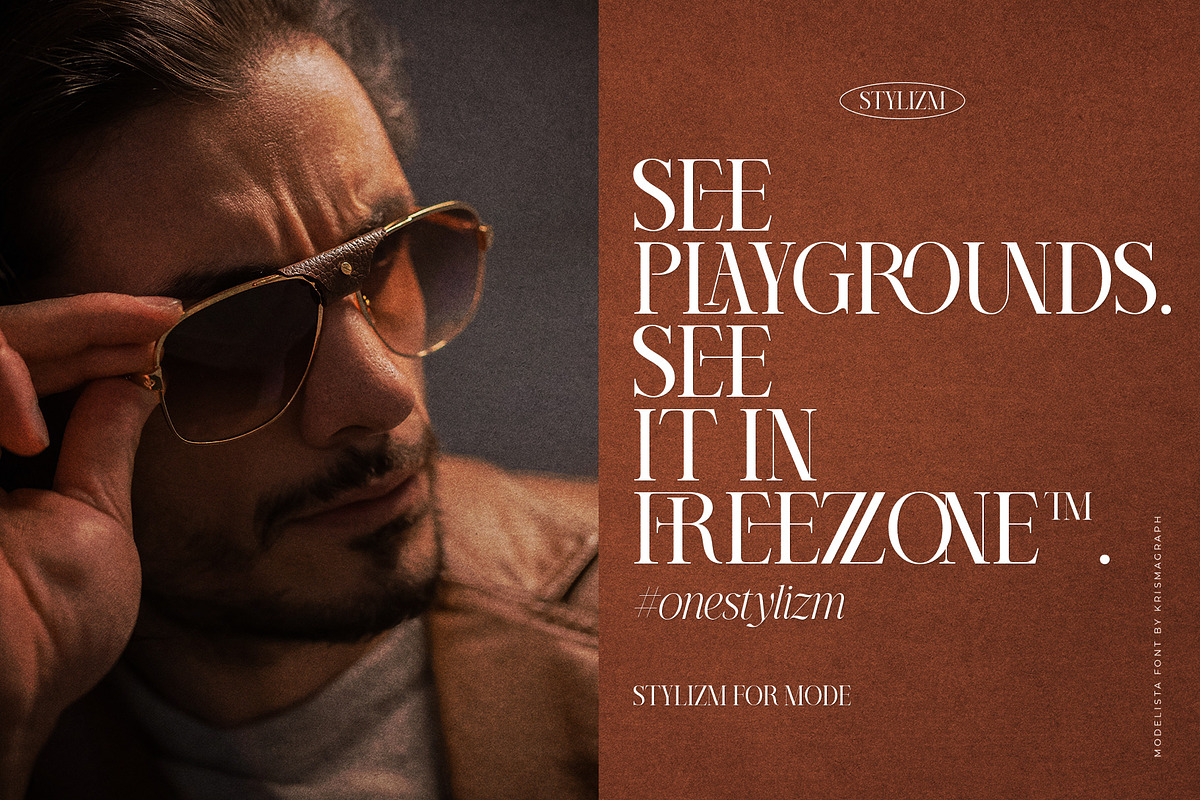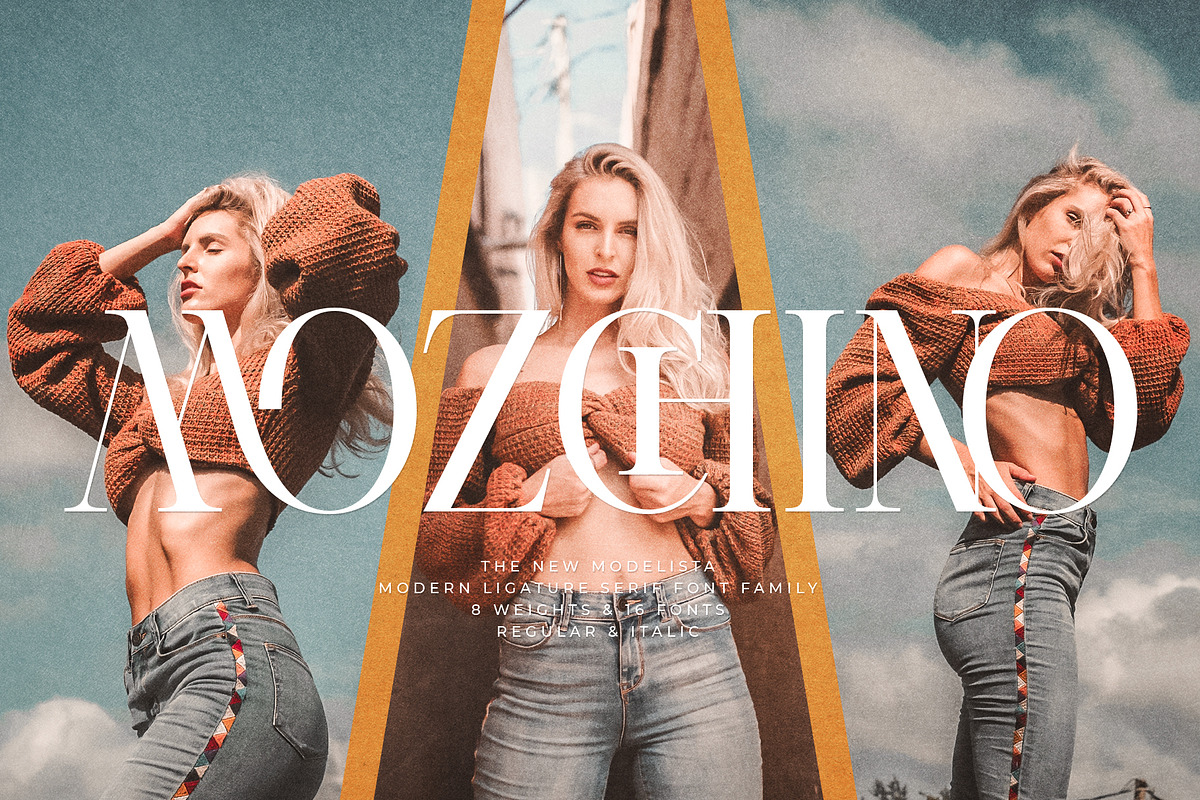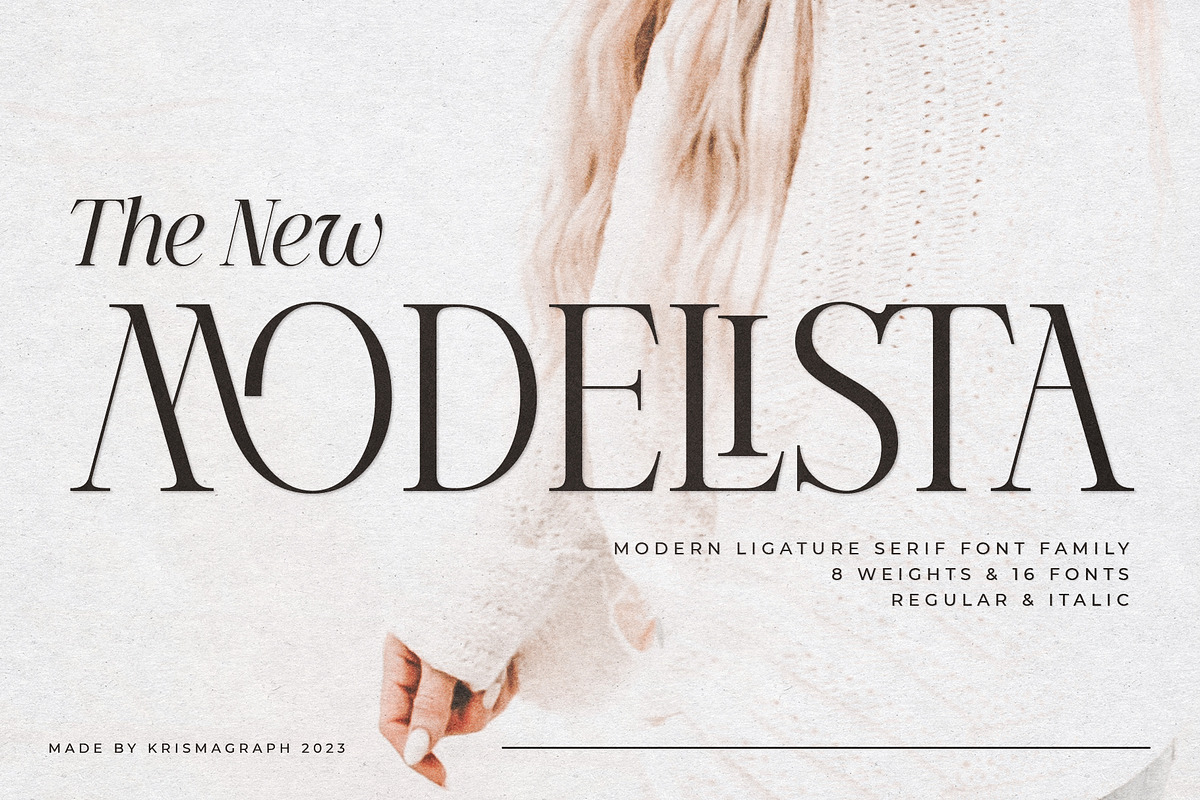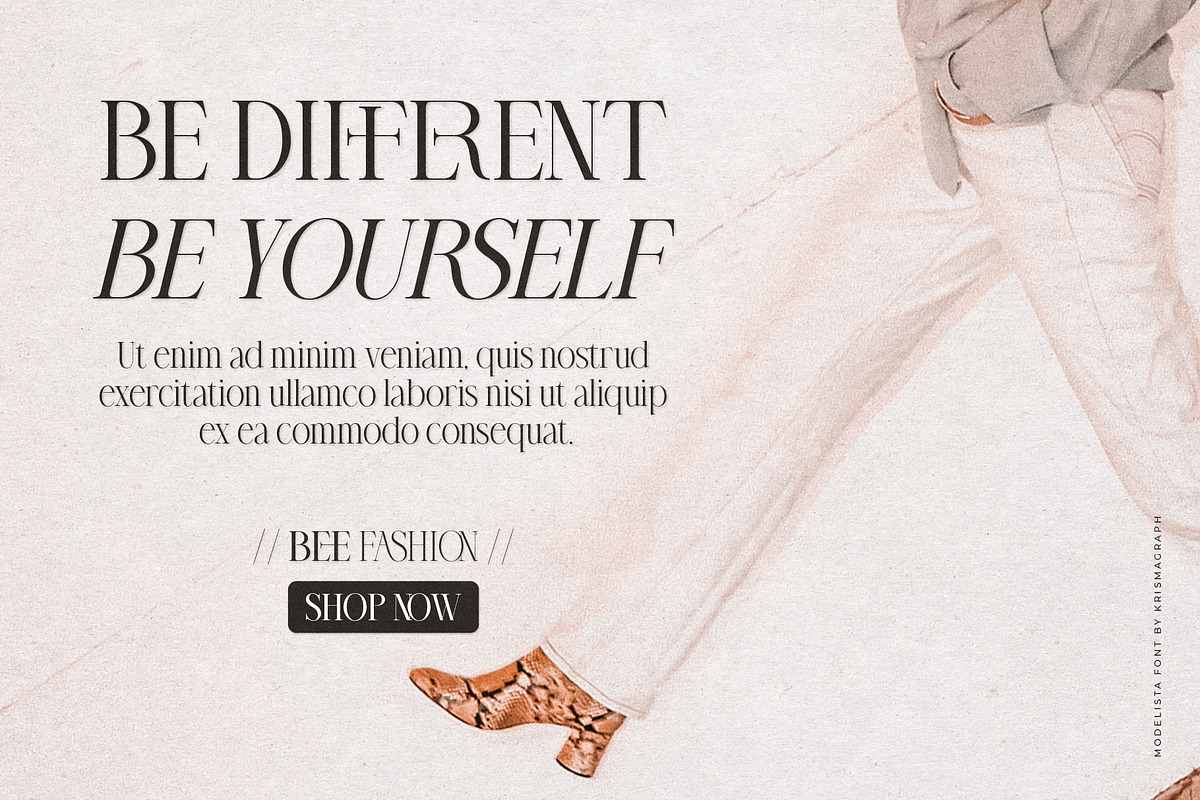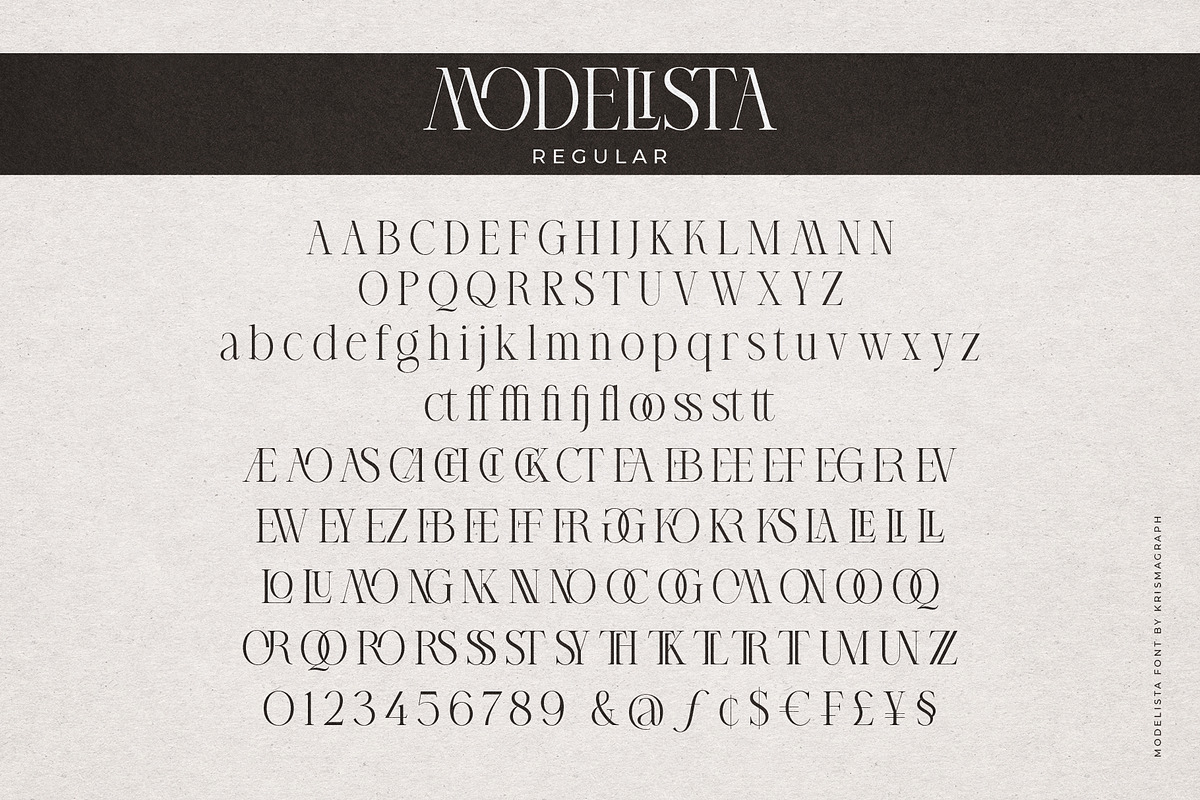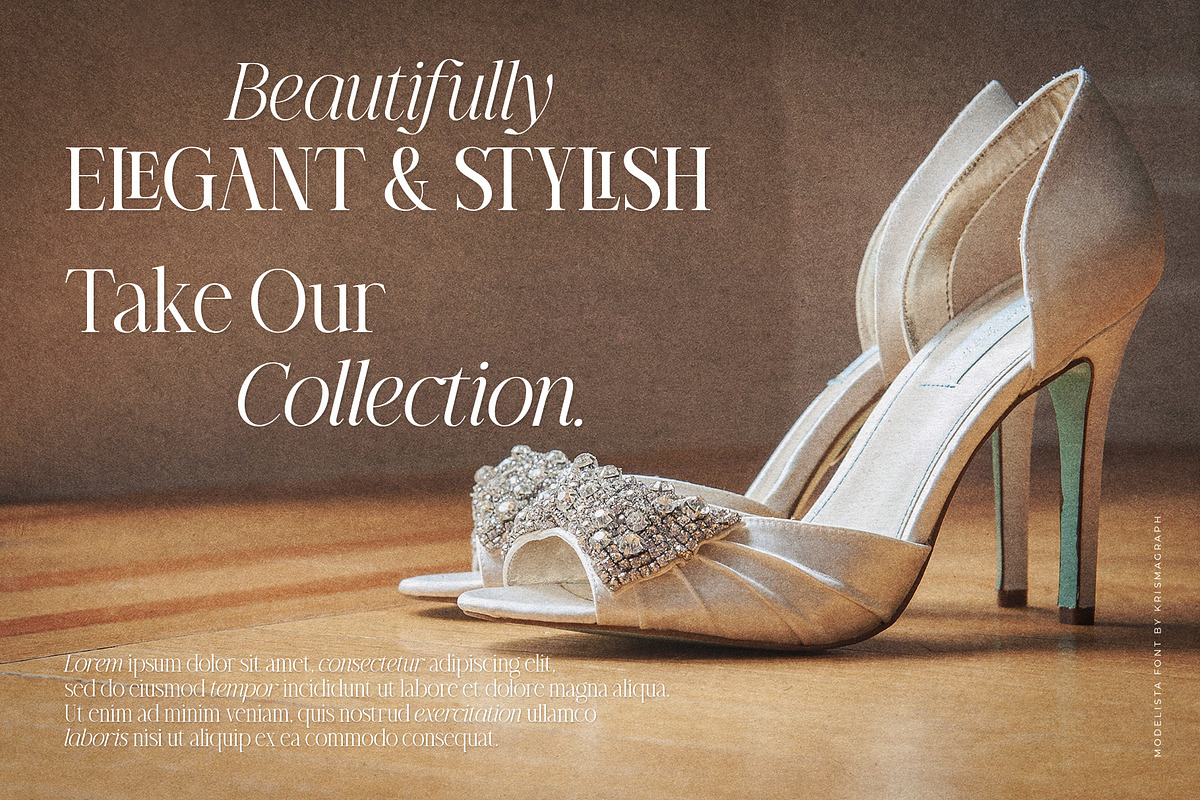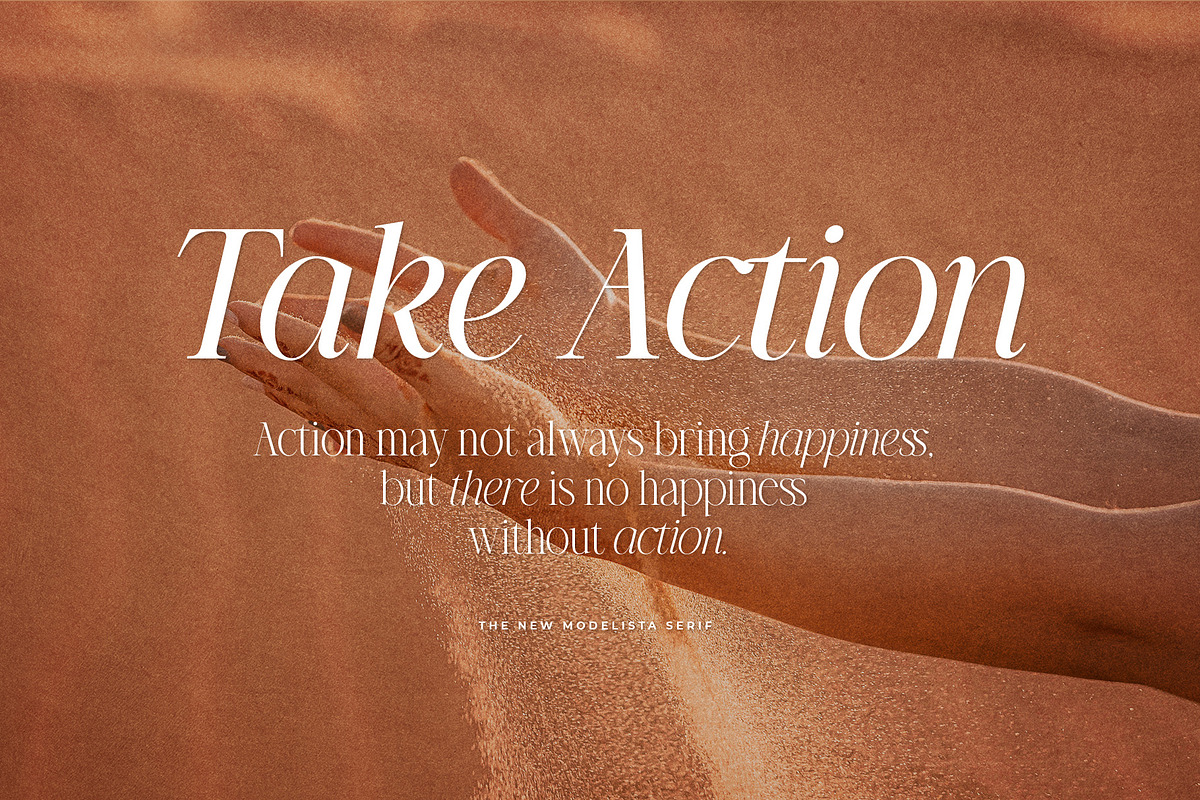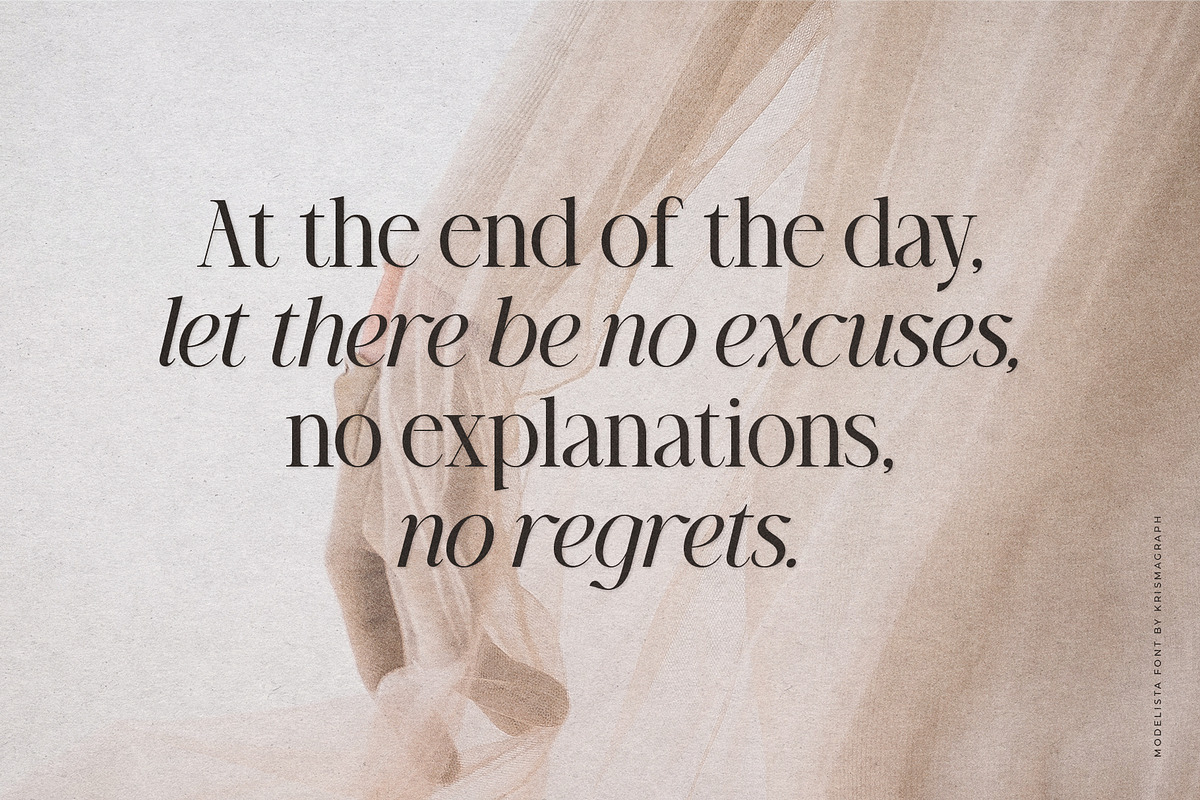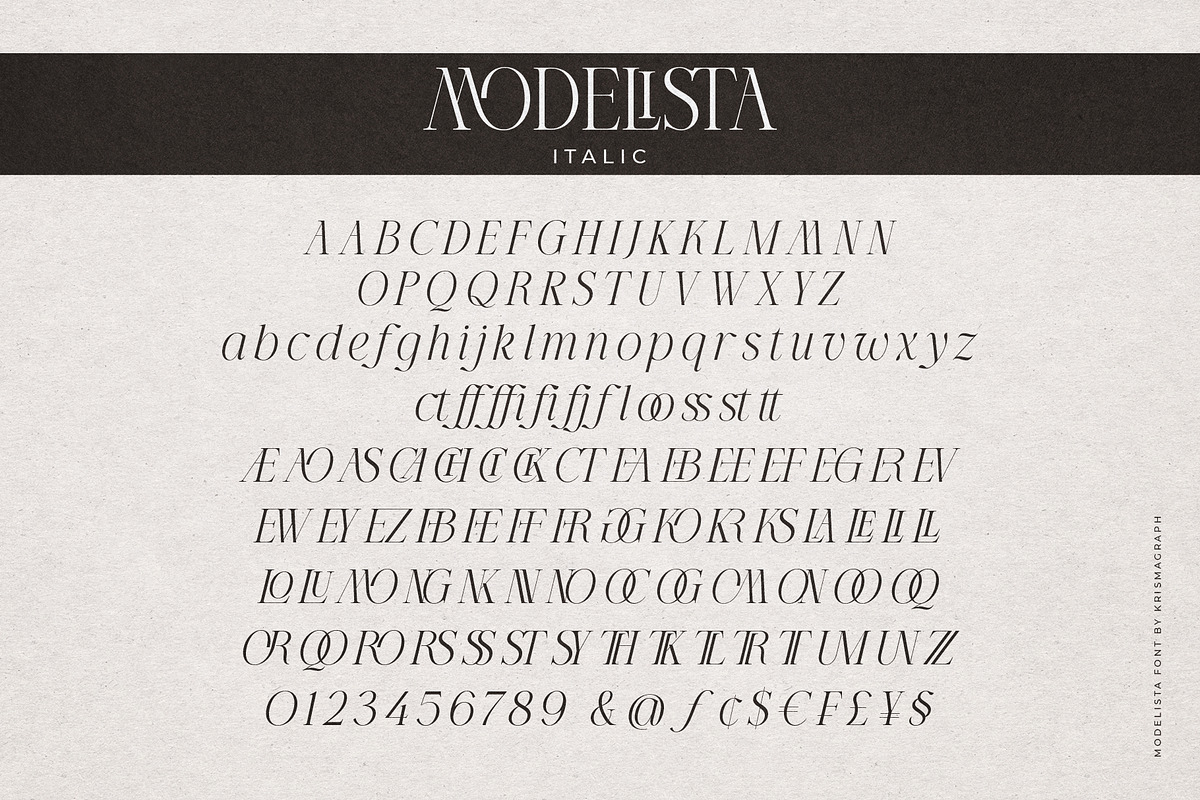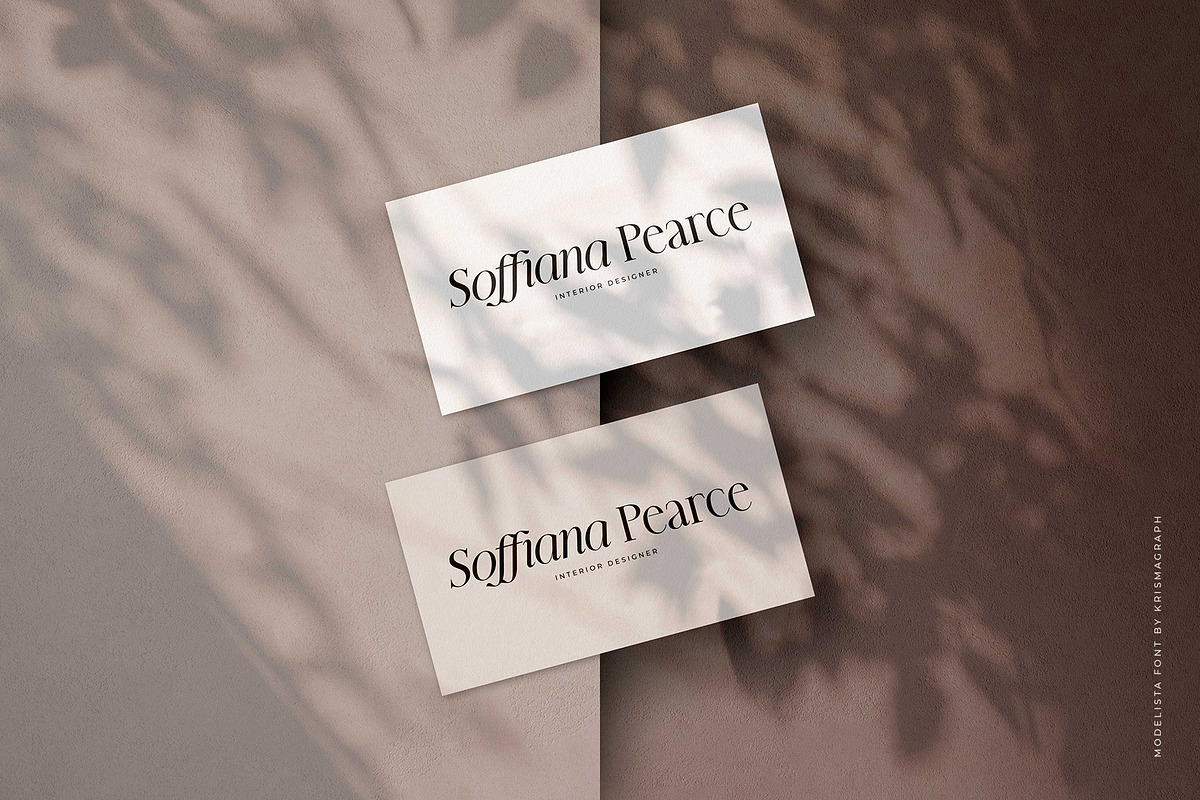
Modelista | Ligature Serif Family
Introducing The New Modelista Serif Family a modern ligature serif font that includes 16 fonts, regular and italic, from Thin weight to Extra Bold.
Modelista is a multipurpose font that is perfect for any project, with high-contrast glyphs, giving it an elegant, feminine and masculine, modern, and easy-to-read quality. It is equipped with a unique ligature to give your designs a new color. Great in layout design for quotes or body copy, best used as a display for headings, logos, branding, magazines, product packaging, invitations, quotes, blogs, and more. This font is easy to use and has OpenType features.
- 8 serif weights
- 16 Fonts from Thin - Extra Bold, Regular & Italic
- Complete the Alphabet with Uppercase and Lowercase Letters
- Numbers, fractions
- Punctuation and symbols